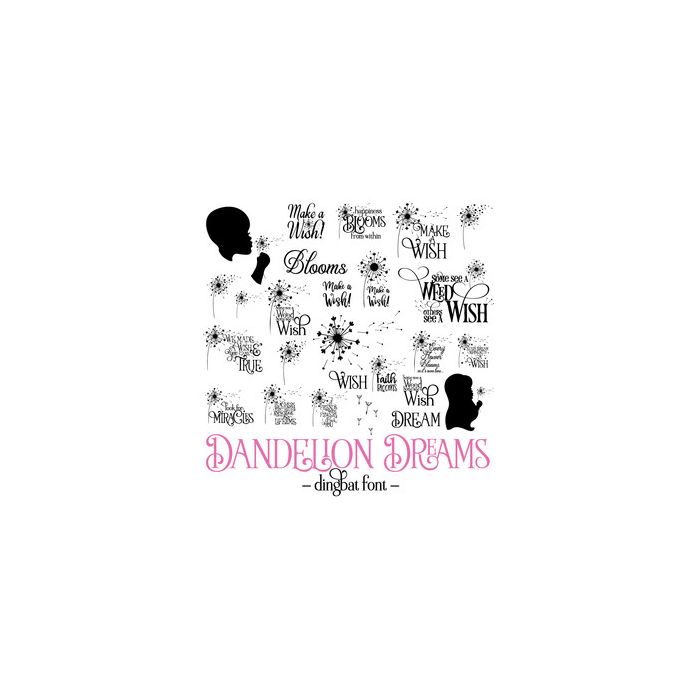
Dandelion Dreams Dingbat Font. Includes 26 dandelion themed sentiments and coordinating embellishments, perfect for card making sentiments, bible journaling, faith journals, inserts, scrapbooking, gifts and more!. All are assigned to an upper case letter starting with 'A' or can be accessed via glyphs. For more design ideas, coordinating designs & products and inspiration, please visit my blog http://www.sarahhurleyblog.com